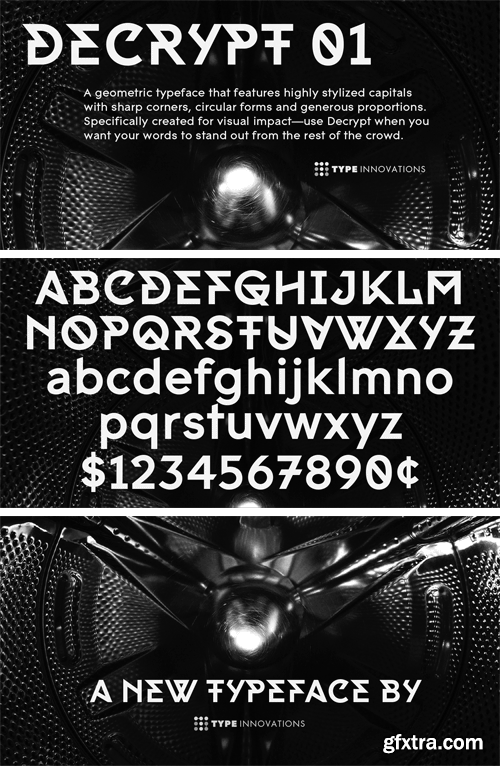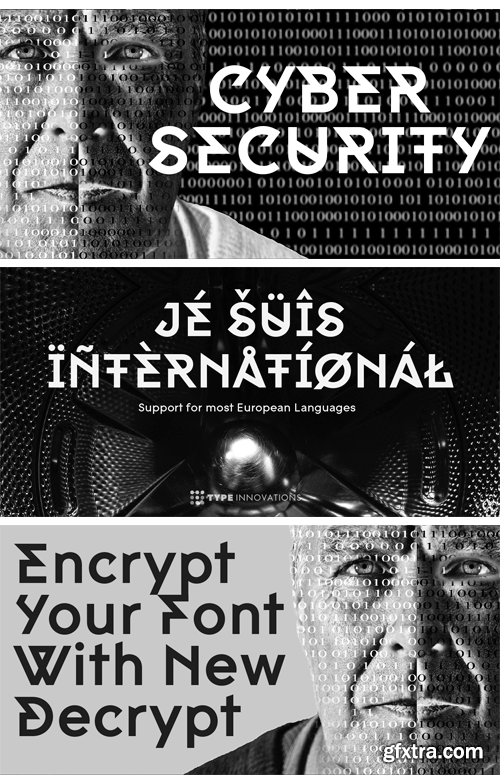
Say hello to Decrypt—a geometric typeface that features highly stylized capitals with sharp corners, circular forms and generous proportions. Specifically created for visual impact—use Decrypt when you want your words to stand out from the rest of the crowd. The concept is modern, futuristic and non-traditional. Perfect for display text, logos and headings.